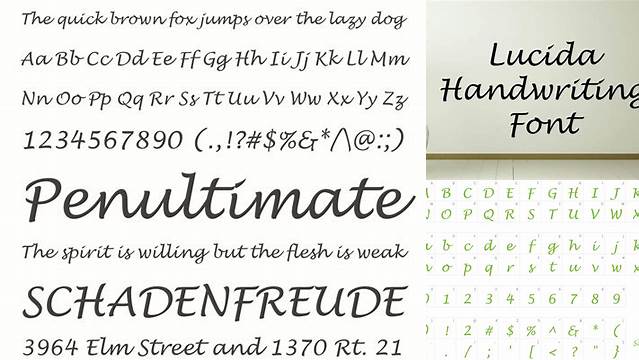
Are you looking to add a personal touch to your projects? Look no further! The Lucida Handwriting font is a fantastic choice for anyone seeking a natural, handwritten feel in their digital documents. This font is perfect for invitations, greeting cards, presentations, and a variety of other creative projects. In this article, we'll dive into everything you need to know about the Lucida Handwriting font, including how to download it for free in PDF format, its unique characteristics, and how to best utilize it in your designs. So, letâs get started and explore the world of Lucida Handwriting!
Understanding the Lucida Handwriting Font
The Lucida Handwriting font is a beautiful and elegant typeface that mimics the look of natural handwriting. Itâs part of the larger Lucida font family, designed by Charles Bigelow and Kris Holmes. What sets Lucida Handwriting apart is its flowing, cursive style, which brings a warm and personal touch to any text. This font isnât just about aesthetics; it's about conveying a sense of authenticity and individuality. Whether youâre crafting a heartfelt letter, designing a unique logo, or putting together a presentation that needs a personal touch, Lucida Handwriting can be a game-changer.
The characteristics of Lucida Handwriting are what make it so appealing. Unlike some overly stylized script fonts, Lucida Handwriting maintains a level of readability thatâs crucial for effective communication. The letters connect smoothly, creating a natural flow that's easy on the eyes. The font also boasts a generous x-height, meaning the lowercase letters are relatively tall, which enhances legibility. Moreover, Lucida Handwriting includes a variety of ligatures (where two or more letters are joined) that add to its authentic handwritten appearance. For instance, the âth,â âfl,â and âffâ combinations have distinct ligatures that make the text look more organic and less like a typical computer font. This attention to detail is what elevates Lucida Handwriting above many other script fonts.
Another key aspect of Lucida Handwriting is its versatility. While it excels in personal and informal contexts, it can also be used effectively in more formal settings when a touch of warmth is desired. Think about using it for wedding invitations, thank-you notes, or even in the header of a business document to create a welcoming impression. The fontâs clean lines and balanced letterforms ensure that it doesnât appear too frivolous or unprofessional. Furthermore, Lucida Handwriting is available in various weights and styles, allowing you to choose the perfect variation for your specific needs. Whether you need a light, delicate touch or a bolder, more pronounced look, thereâs a Lucida Handwriting style that will fit the bill.